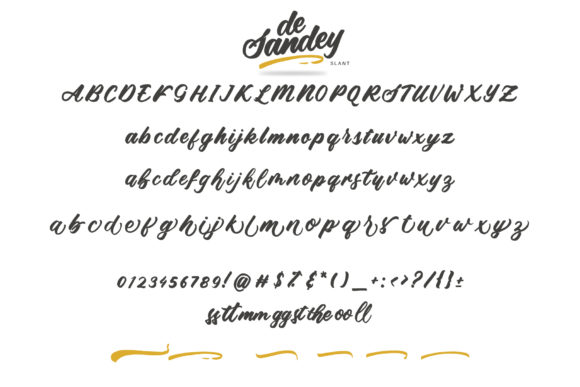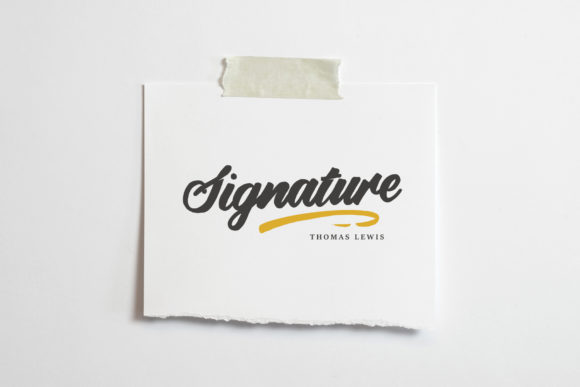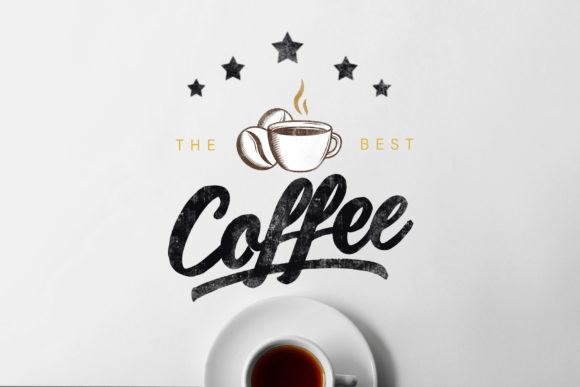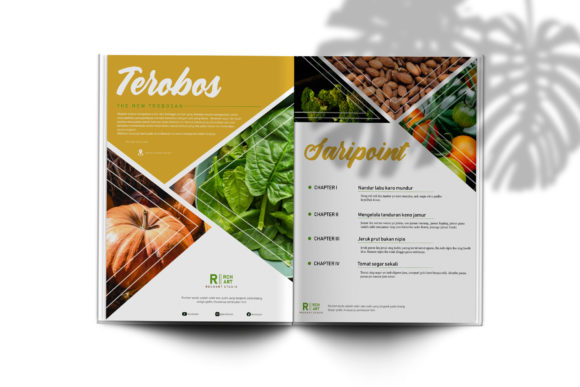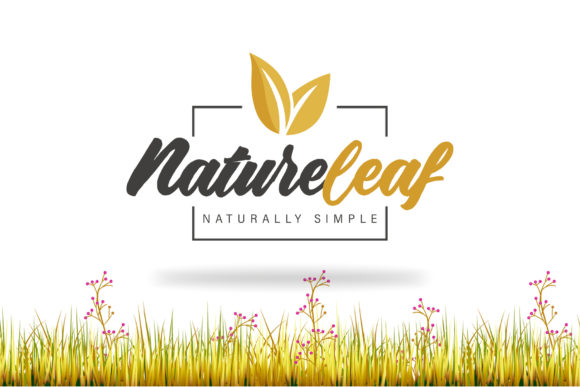
The Magic of De Sandey Font: A Designer’s Delight
I still remember the time I was working on a wedding invitation project, and I just couldn’t find the perfect font to capture the elegance and romance of the occasion. My client was specific about wanting something that felt handwritten, yet sophisticated. That’s when I stumbled upon De Sandey Font, and it was love at first sight! 💕
De Sandey is a beautiful and flowing handwritten font, created with the help of a brush pen. It is PUA encoded, which means you can access all of the glyphs and swashes with ease! It features a varying baseline, smooth lines, gorgeous glyphs, and stunning alternates. In this article, I’ll share my experience with De Sandey, its features, and how to make the most of it in your designs.
An Honest Review of De Sandey Font
- 💫 Beautifully crafted with a brush pen, giving it a unique, hand-written feel
- 🎨 Features a varying baseline, smooth lines, and stunning alternates
- 💕 Incredibly versatile, perfect for wedding invitations, stationery, social media posts, and more
While De Sandey is an amazing font, there are a few things to keep in mind:
- 🤔 Some users may find the font a bit too ornate for certain projects, such as body text or long-form content
- ⚠️ The font’s script style may not be suitable for very formal or traditional designs
The Story Behind De Sandey Font
De Sandey was created by a talented designer who wanted to capture the beauty of handwritten script in a digital font. Inspired by the flowing lines of a brush pen, De Sandey is the perfect blend of elegance and playfulness. Whether you’re a designer, crafter, or creative hobbyist, De Sandey is sure to become a favorite in your font collection.
Q: What is PUA encoding, and how does it benefit De Sandey Font?
A: PUA (Private Use Area) encoding allows designers to access a wide range of glyphs and swashes, making it easier to customize and personalize their designs.
Q: Is De Sandey Font suitable for body text or long-form content?
A: While De Sandey is a beautiful font, it may not be the best choice for body text or long-form content due to its ornate and script style. It’s better suited for headlines, titles, or short paragraphs.